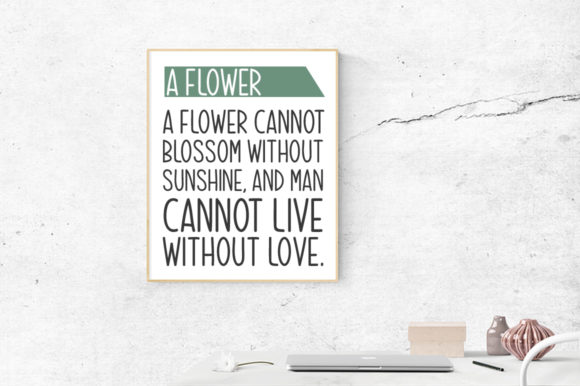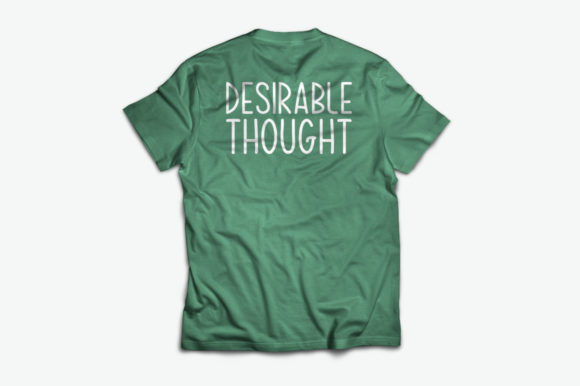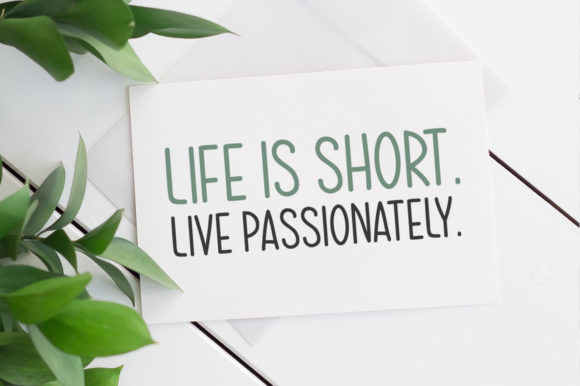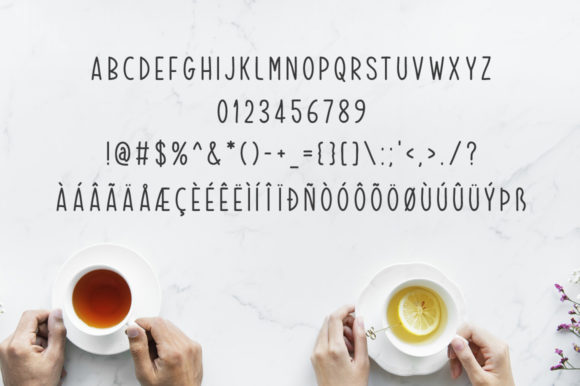
Desirable Thought Font
About Desirable Thought Font
Desirable Thought stands out as a bold and striking handwritten font designed to make a visual impact across a wide array of creative projects. Its versatility makes it a perfect choice for a diverse range of applications, adding a touch of uniqueness and flair to your designs.
Whether you’re working on stationery, logos, t-shirts, papers, or print designs, Desirable Thought brings a distinctive handwritten style that captures attention. Its bold and expressive nature makes it particularly well-suited for website headers, photo frames, flyers, and music covers, where a strong visual presence is essential.
The font’s ability to seamlessly adapt to different mediums, including posters, image sliders, and more, showcases its versatility. Desirable Thought doesn’t just serve as a typographic choice; it becomes a design element that enhances the overall aesthetic of your project.
In summary, Desirable Thought is more than just a font; it’s a creative asset that adds a bold and striking dimension to your work. Whether you’re creating stationery, logos, t-shirts, or any other design project, this handwritten font is designed to leave a lasting impression and bring a touch of character to your creative endeavors.